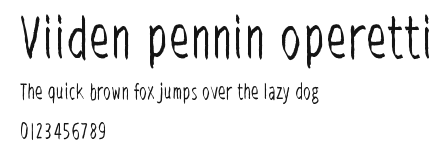
Viiden pennin operetti Preview
• Font Name: Viiden pennin operetti
• Full Font Name: Viiden pennin operetti
• Version: Version 1.00 December 7, 2015, initial release
About Viiden pennin operetti.ttf
Viiden pennin operetti.ttf is a modern, elegant sans-serif font designed for ultimate readability and visual harmony. Perfect for branding, headlines, web design, and print materials.